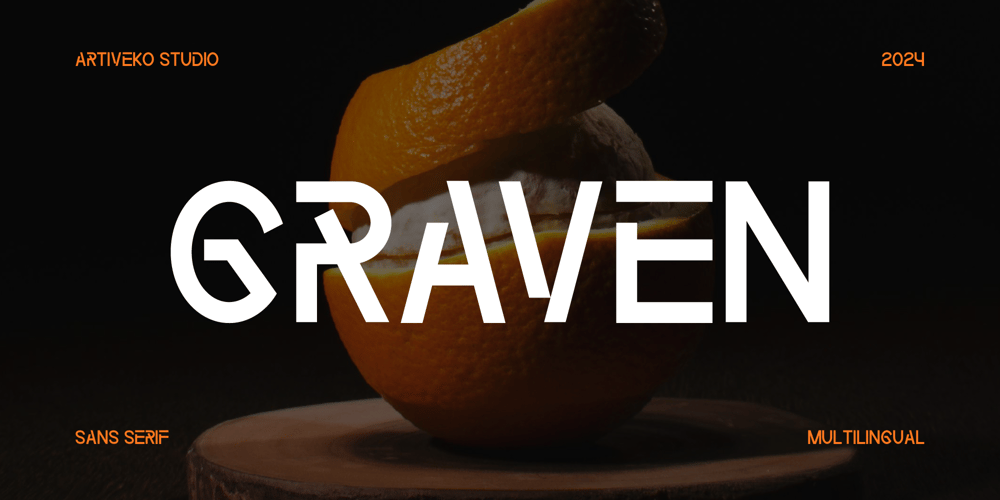
Graven Font Family was designed by Iwan Alwan and published by Artiveko. Graven contains 2 styles and family package options. Graven is a modern sans serif font crafted by Iwan Alwan. Its unique design features distinct variations between uppercase and lowercase characters, offering a versatile aesthetic.Graven supports multiple languages, making it ideal for diverse projects. Its clean, contemporary style ensures readability while adding a touch of sophistication to any text.Perfect for branding, editorial design, and web use, Graven’s distinctive form stands out, providing both functionality and flair.